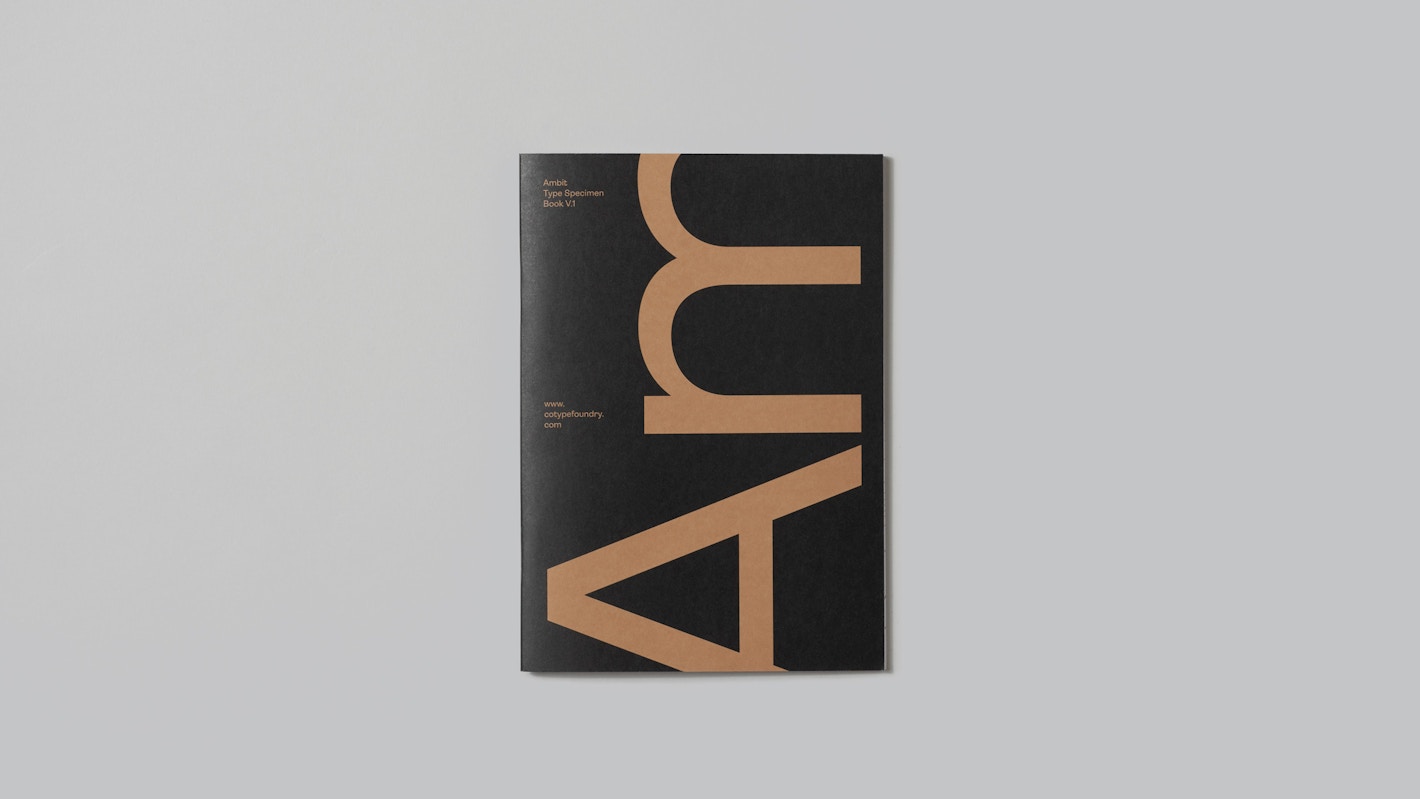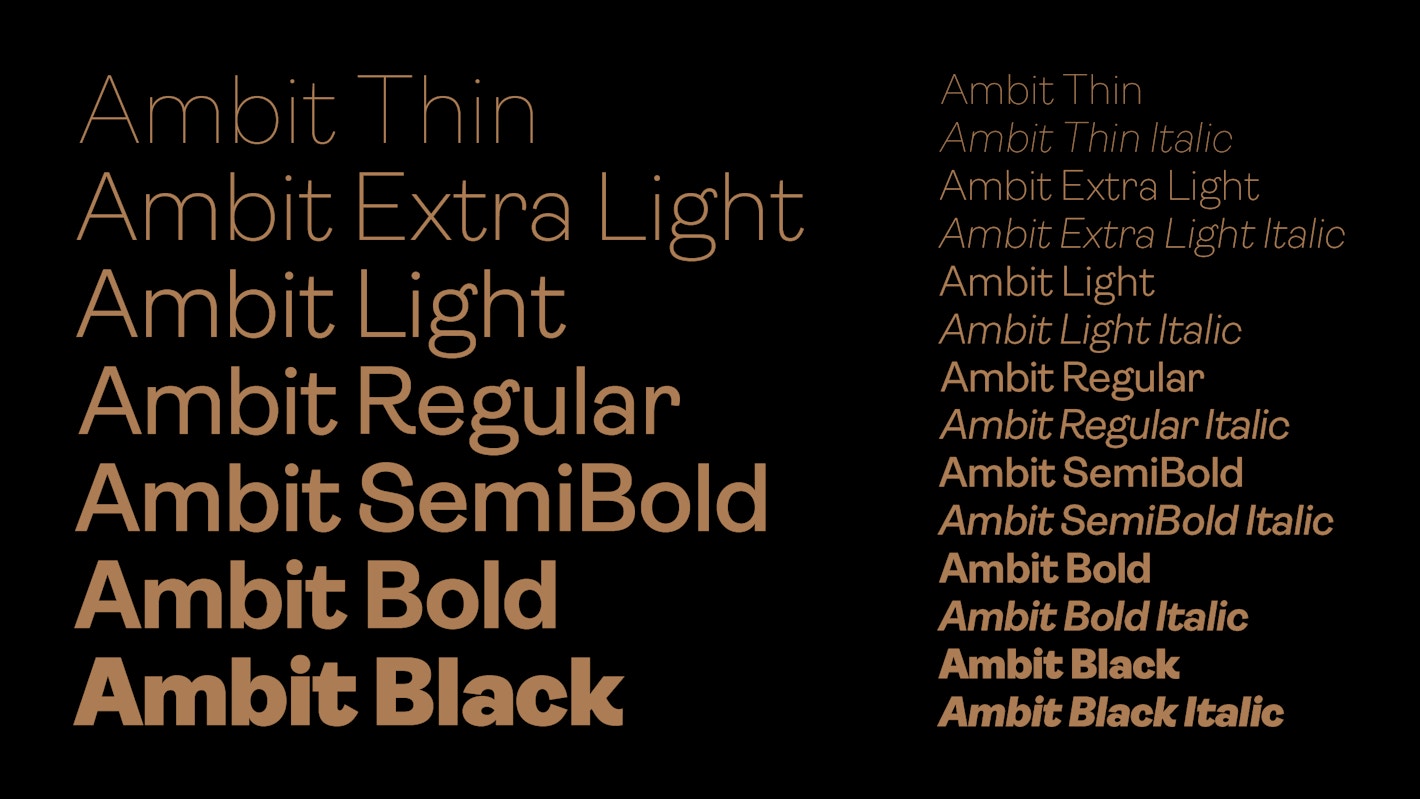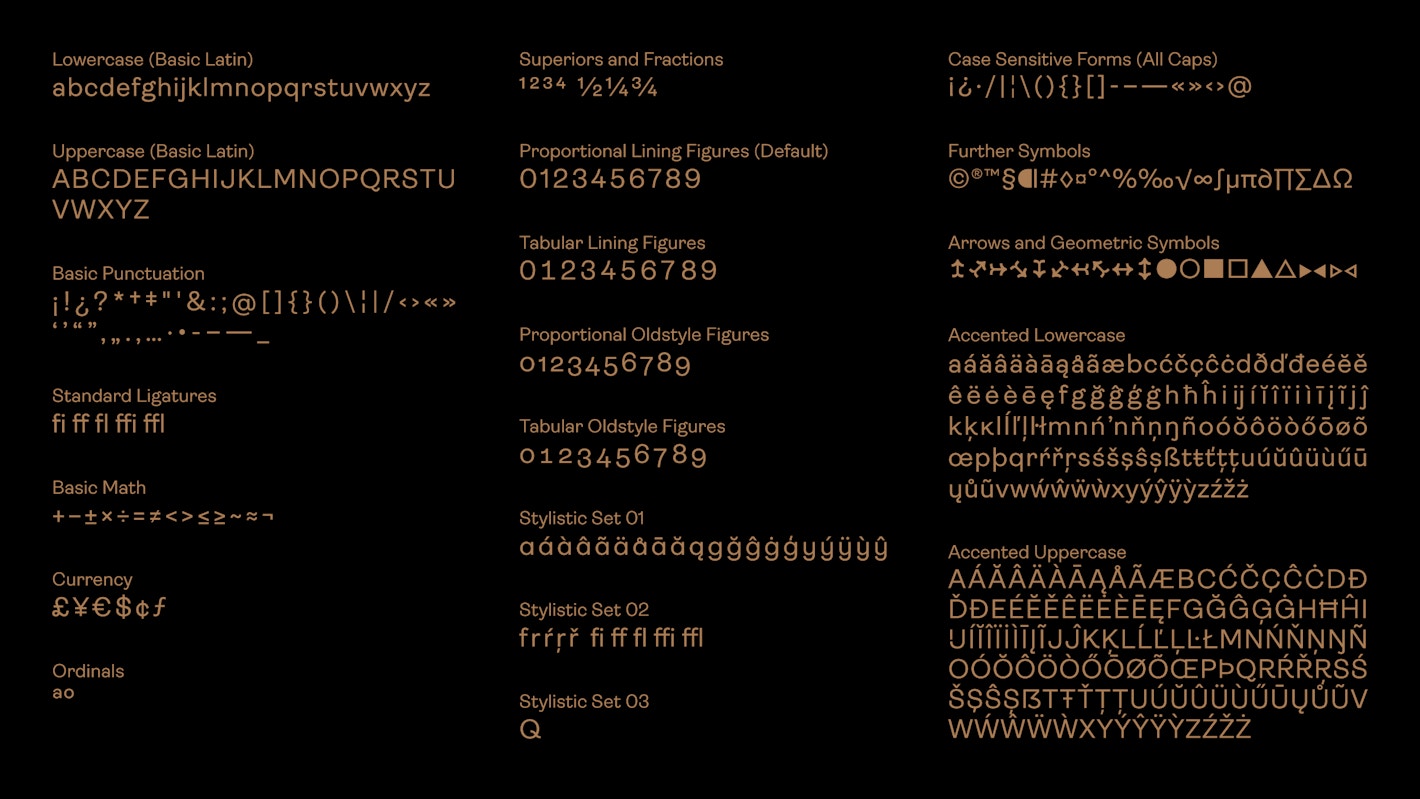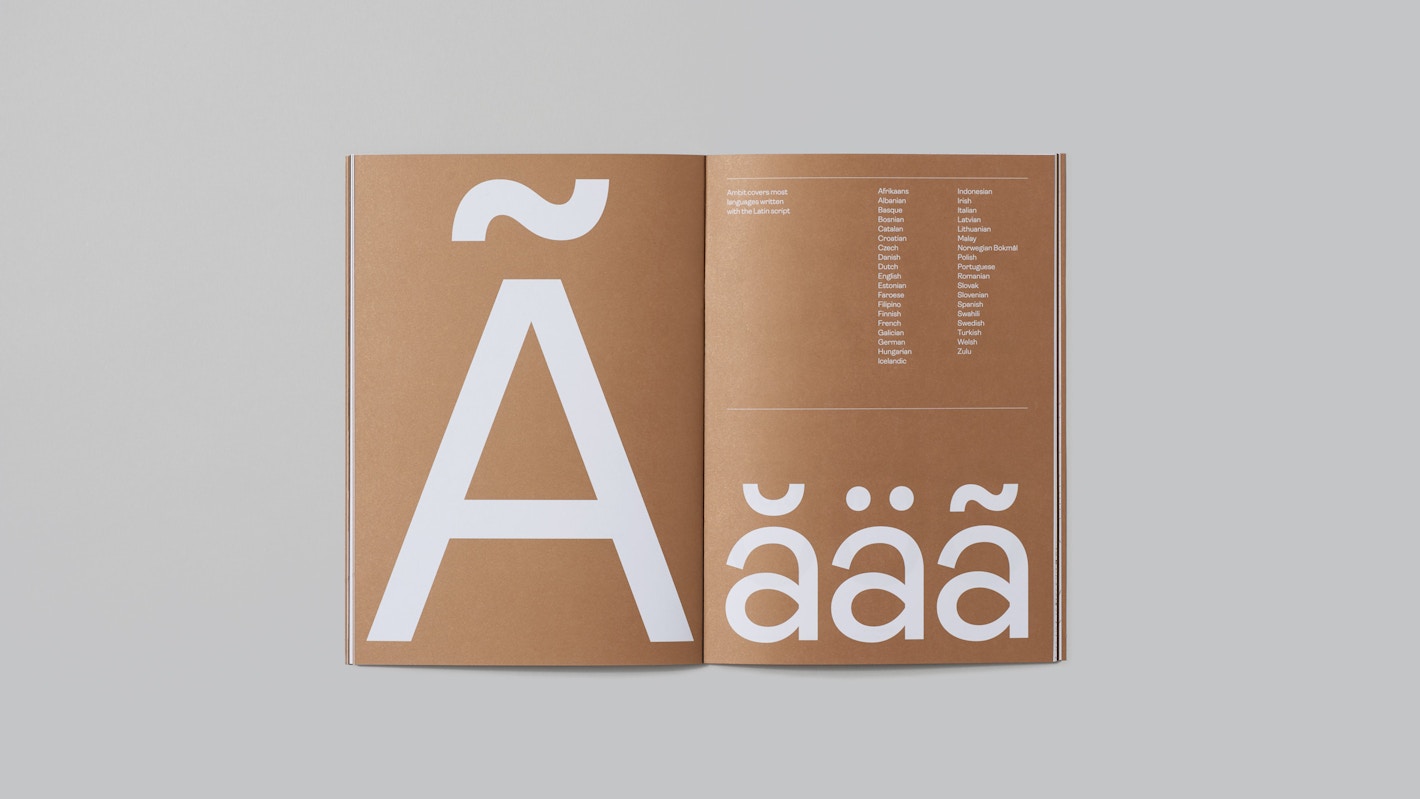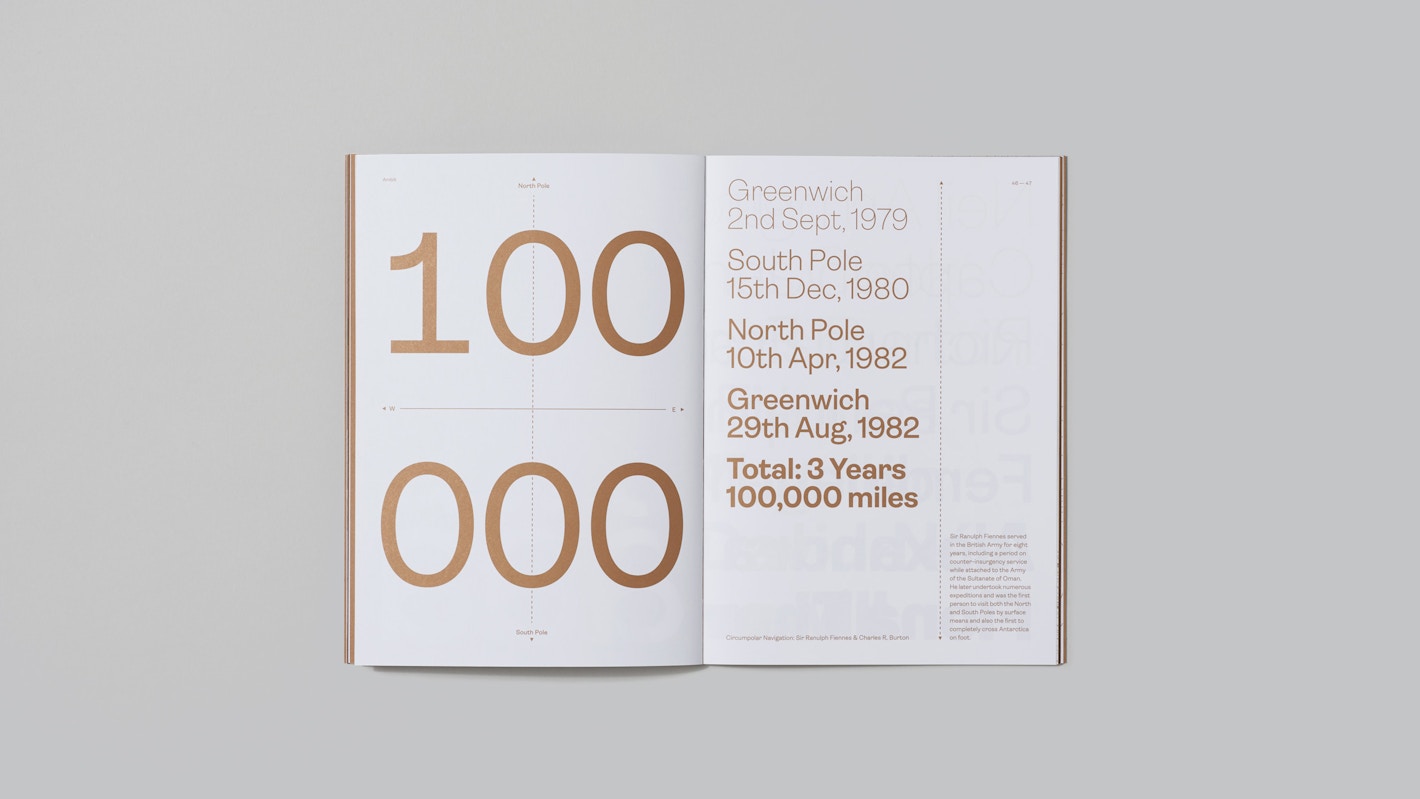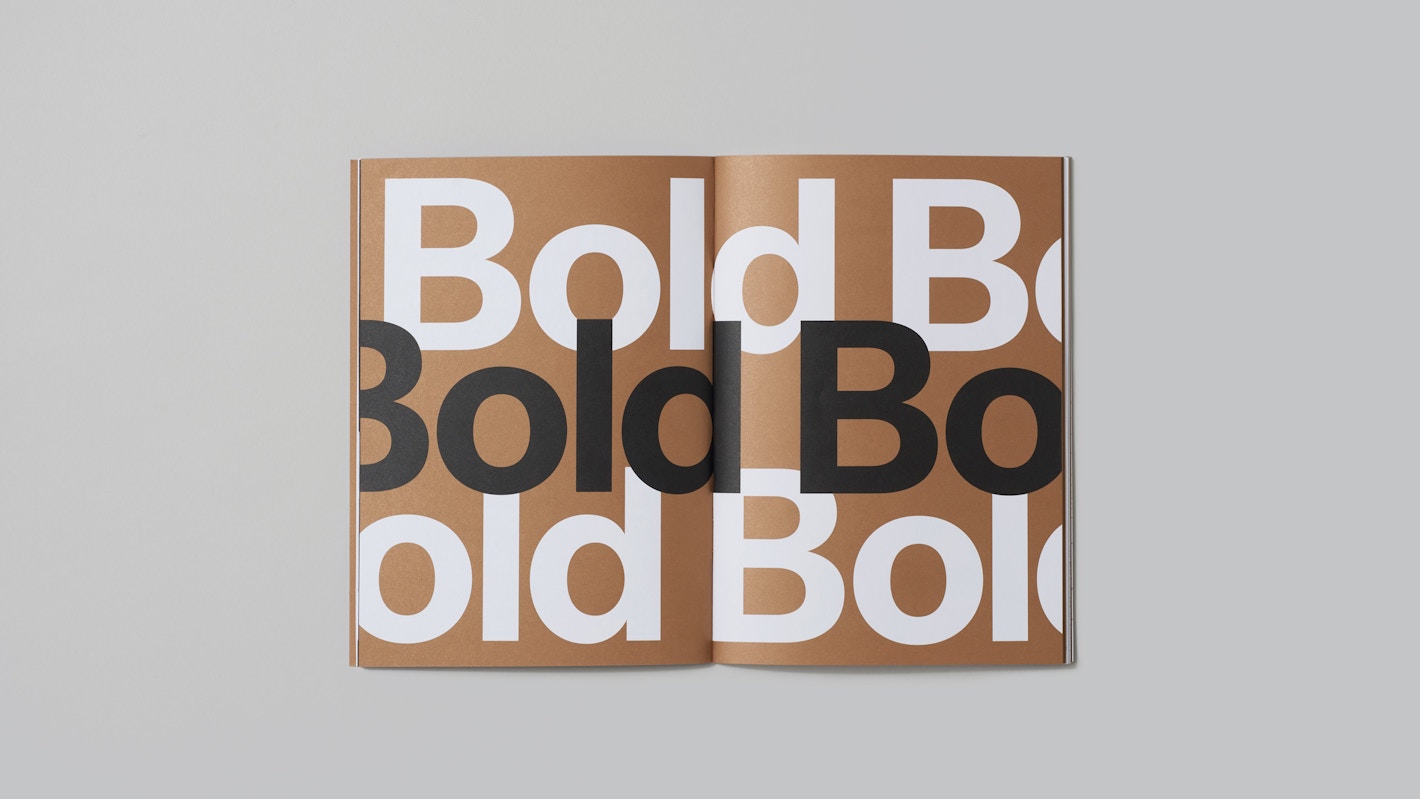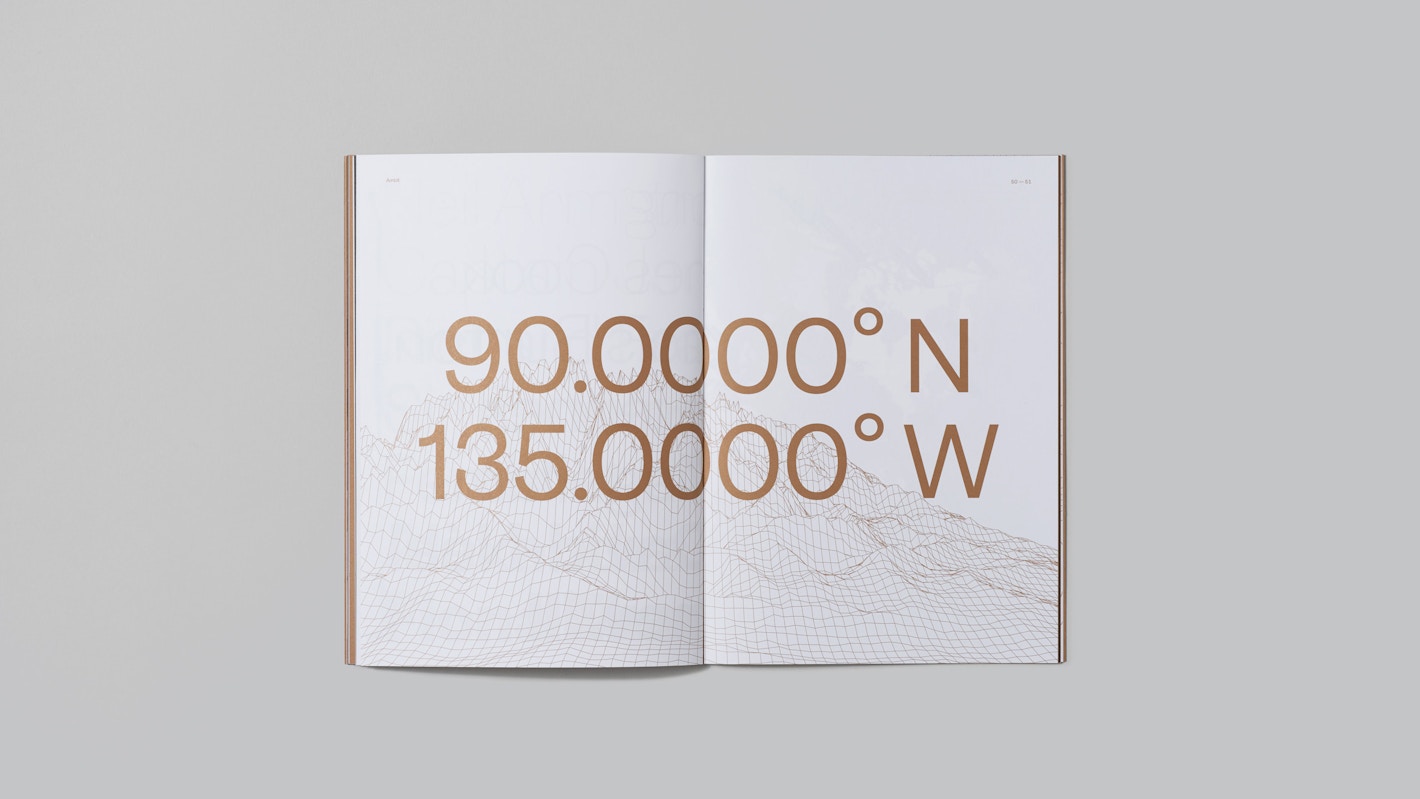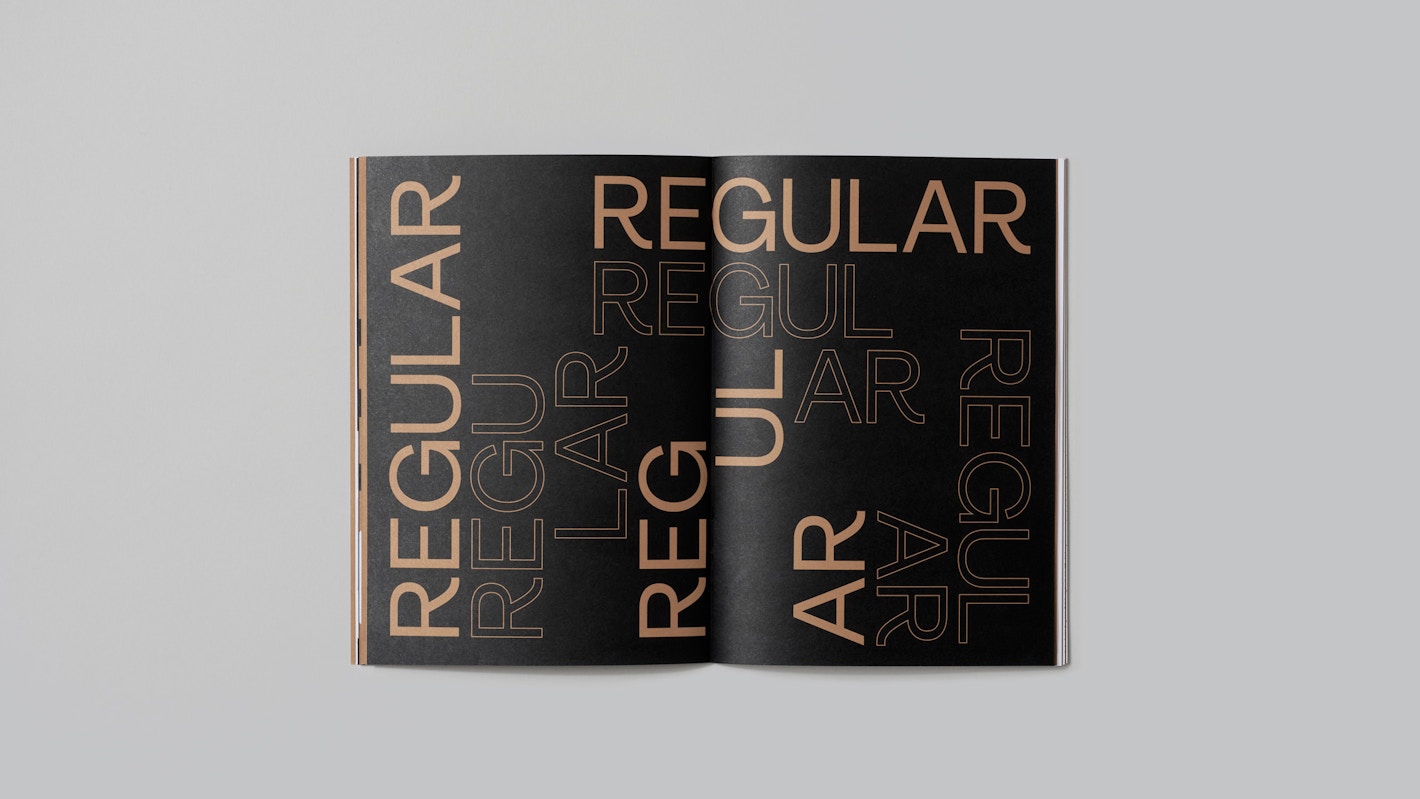
Ambit is an eccentric and distinctive sans-serif font that blends the charm of early grotesques with a contemporary twist. Its bold personality is defined by playful details like the curly ‘f’ and ‘r,’ exaggerated bottom loops in characters like ‘c,’ ‘C,’ ‘s,’ and ‘S,’ and the twisting legs of ‘R’ and ‘K.’ These unique features give Ambit a recognizable character that balances quirkiness with functionality.
The family includes seven weights – from Thin to Black – each with matching oblique italics. For even greater control, variable font technology enables precise fine-tuning of weight. Its Latin Extended character set supports most European languages written in the Latin script, ensuring global versatility.
Ambit’s OpenType features enhance its functionality and adaptability. These include ligatures, lining, old-style, and tabular numerals, as well as case-sensitive punctuation. Three stylistic sets unlock a range of alternate shapes: a single-storey ‘a,’ ‘g,’ and an alternate ‘y’; simpler versions of the curly ‘f’ and ‘r’ for improved readability in small text; and an alternate ‘Q’ for creative expression.
With its quirky details and bold personality, Ambit is an excellent choice for branding, packaging, and editorial projects – both in print and online.